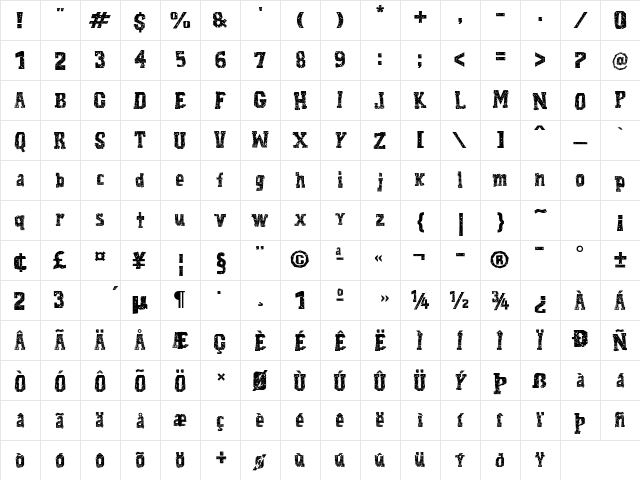
Cordel Encarnado Regular Free Font
Cordel Encarnado Regular
Design Context for Cordel Encarnado
Cordel Encarnado is a composed and adaptable typeface that performs quietly and consistently across a wide range of design contexts.
Pro Tip: Use Cordel Encarnado in both headline and body roles to test its range before committing to a single application.